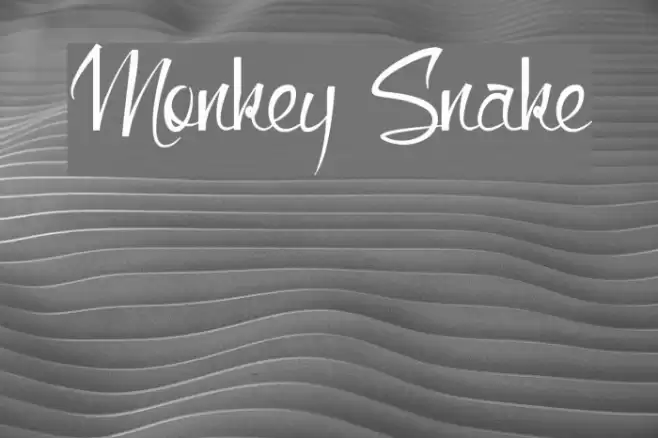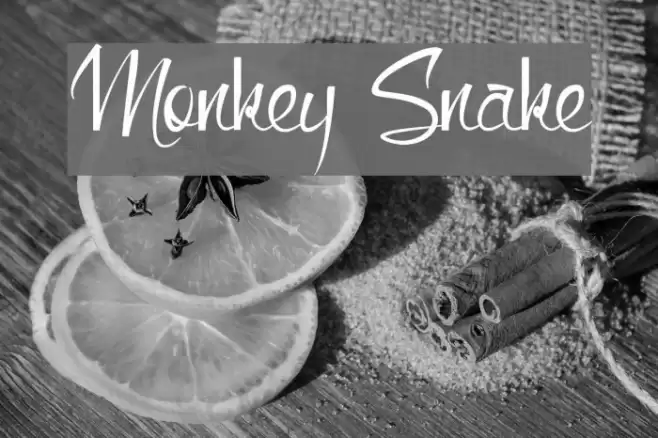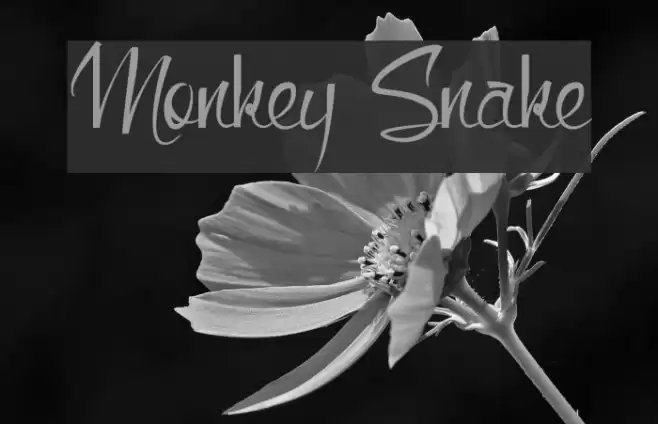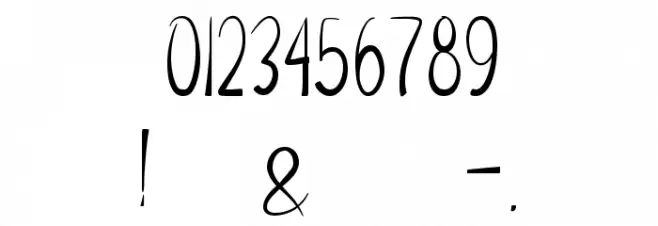
Monkey Snake Font
Monkey Snake Description
This font features a unique blend of elegance and playfulness, characterized by its flowing, cursive-like strokes and distinctive, elongated serifs. The uppercase letters exhibit a dynamic, sweeping motion, while the lowercase letters maintain a more compact and whimsical appearance. The numerals are consistent with the overall style, offering a playful yet sophisticated look. Special characters are creatively integrated, enhancing the font's versatility. The design is both artistic and functional, making it suitable for a variety of creative projects.
A playful and elegant font with flowing, cursive-like strokes and elongated serifs from Uncategorized fonts.
- Proposed Projects: Ideal for branding, invitations, greeting cards, and artistic projects that require a touch of elegance and creativity.
- Use Case: Logos, Invitations, Artistic projects